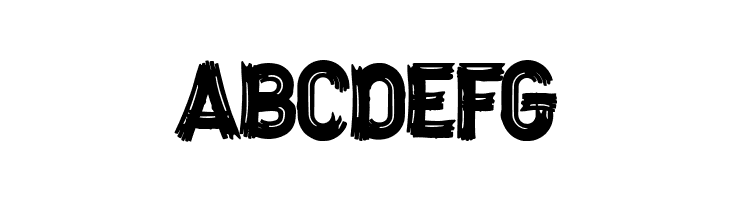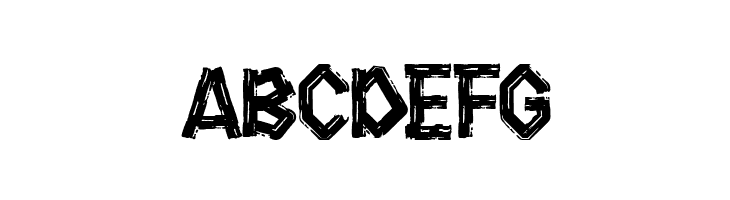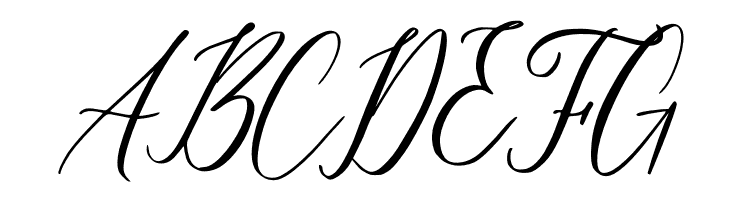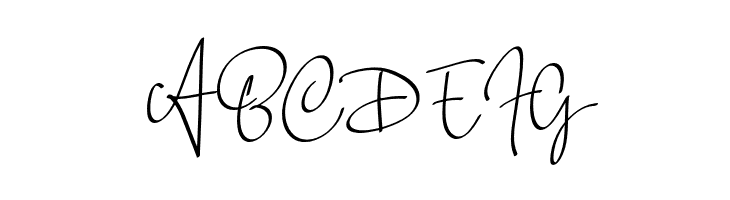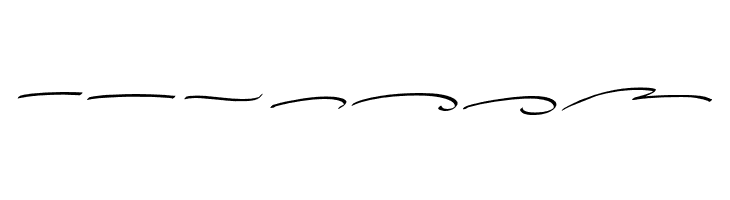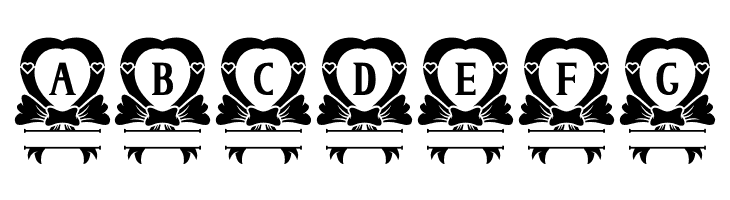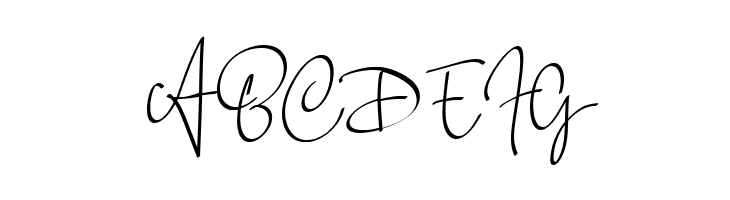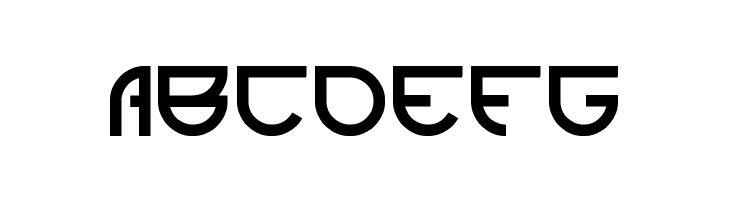
• Alexandry
A graceful, handwritten script font with elegant curves and fluid connections.
• Alexandry
An elegant, flowing script font with smooth, cursive strokes.
• Alexandry Swash
A decorative design with elegant, flowing lines and intricate swirls.
• AlexandrySwash
An elegant, flowing font with sophisticated swashes and decorative flourishes.
• Alexaniri 2.0
A rugged, distressed font with a hand-drawn, textured style.
• Alexaniri_demo
A bold, brush-like font with a dynamic and textured appearance.
• Alexaniri_demo
A bold, brush-textured font with a dynamic, hand-drawn style.
• Alexanna
A sophisticated script font with fluid, cursive strokes and elegant design.
• Alexatie
A playful, heart-encased decorative font ideal for whimsical projects.
• alexey
A futuristic, geometric font with bold, angular letterforms.